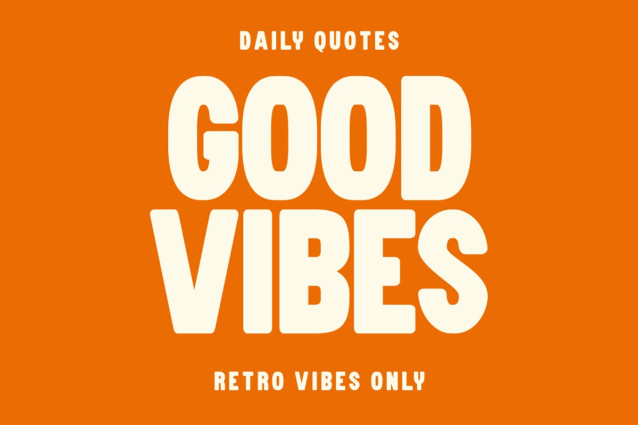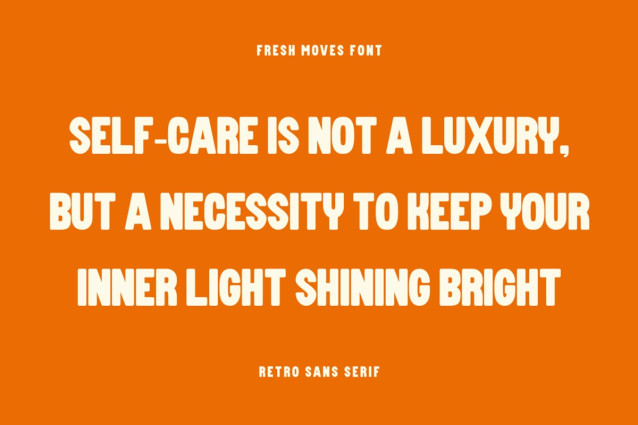
Fresh Moves Font
Fresh Moves Font a playful retro sans serif from Masyafi Studio. Inspired by the bold and bubbly typography of the retro era, Fresh Moves is all about fun, energy, and big personality.
Fresh Moves features thick, juicy strokes and rounded corners that give it a “puffy” look, making it incredibly tactile and visual. It’s the perfect font for when your design needs to feel approachable, energetic, and undeniably cool. From streetwear branding to organic food packaging, this font moves with style.